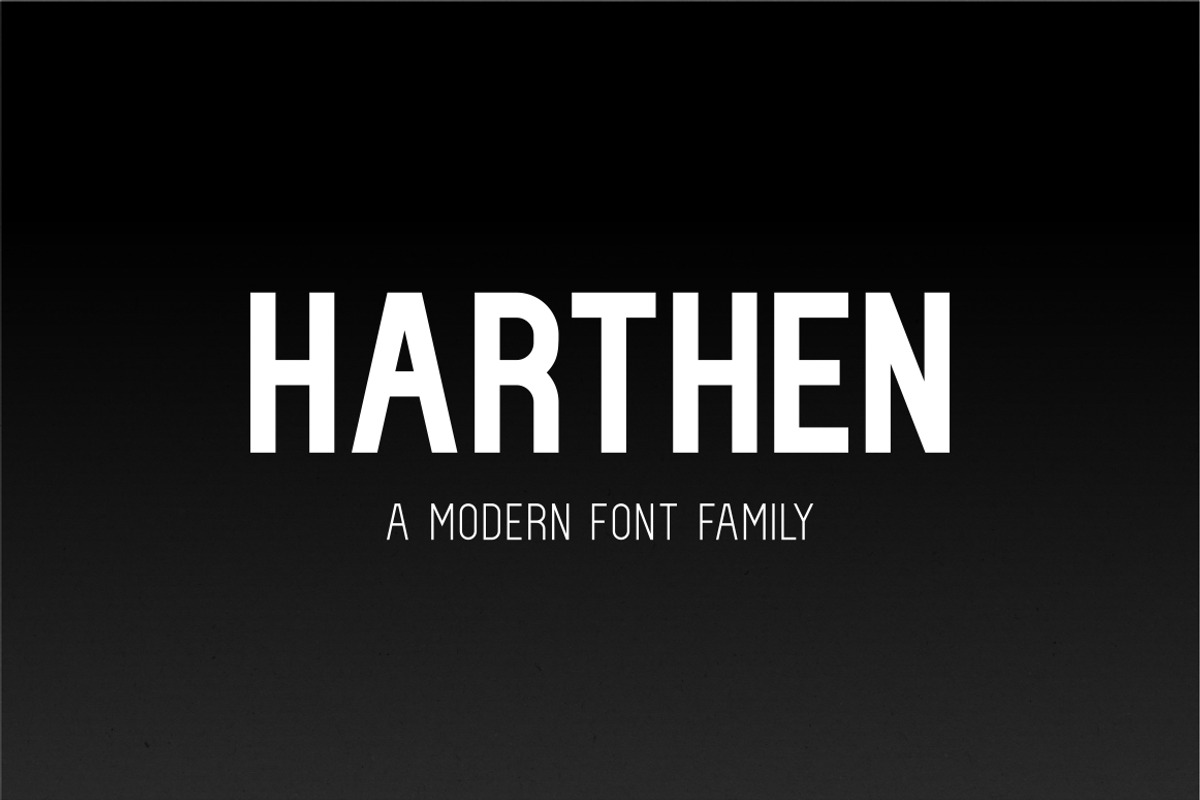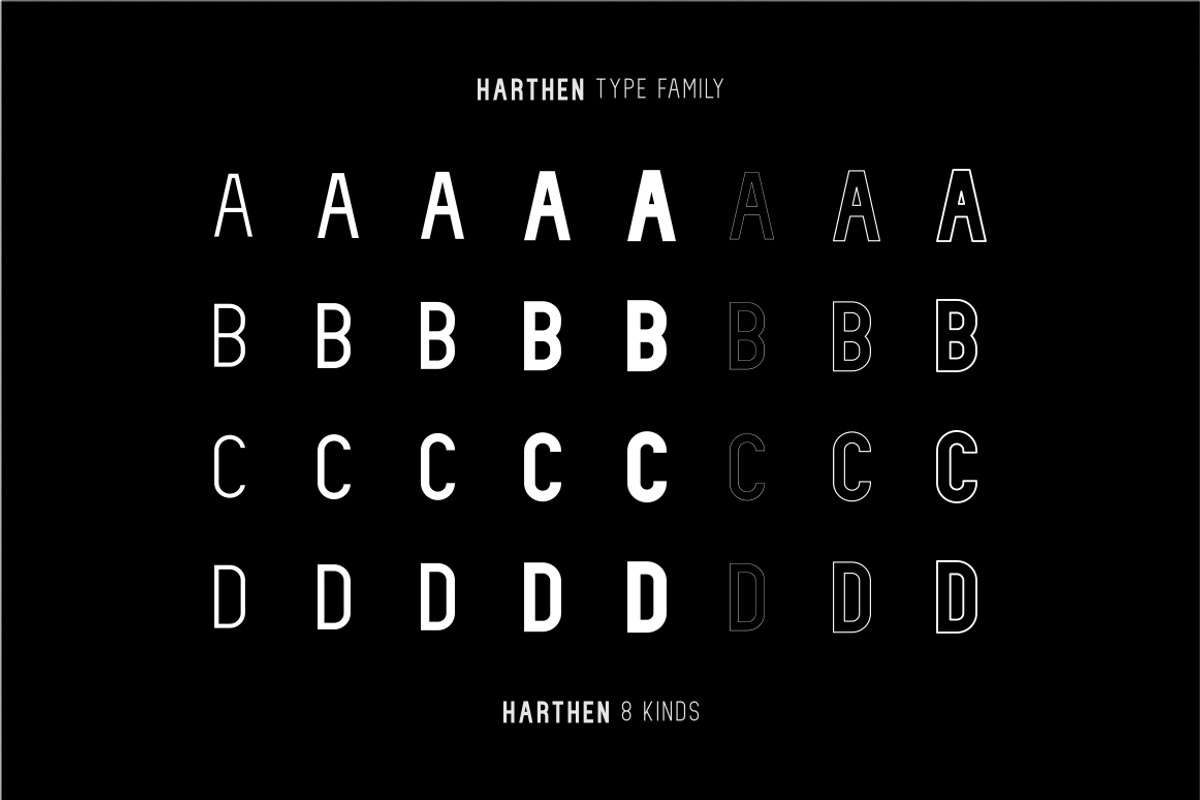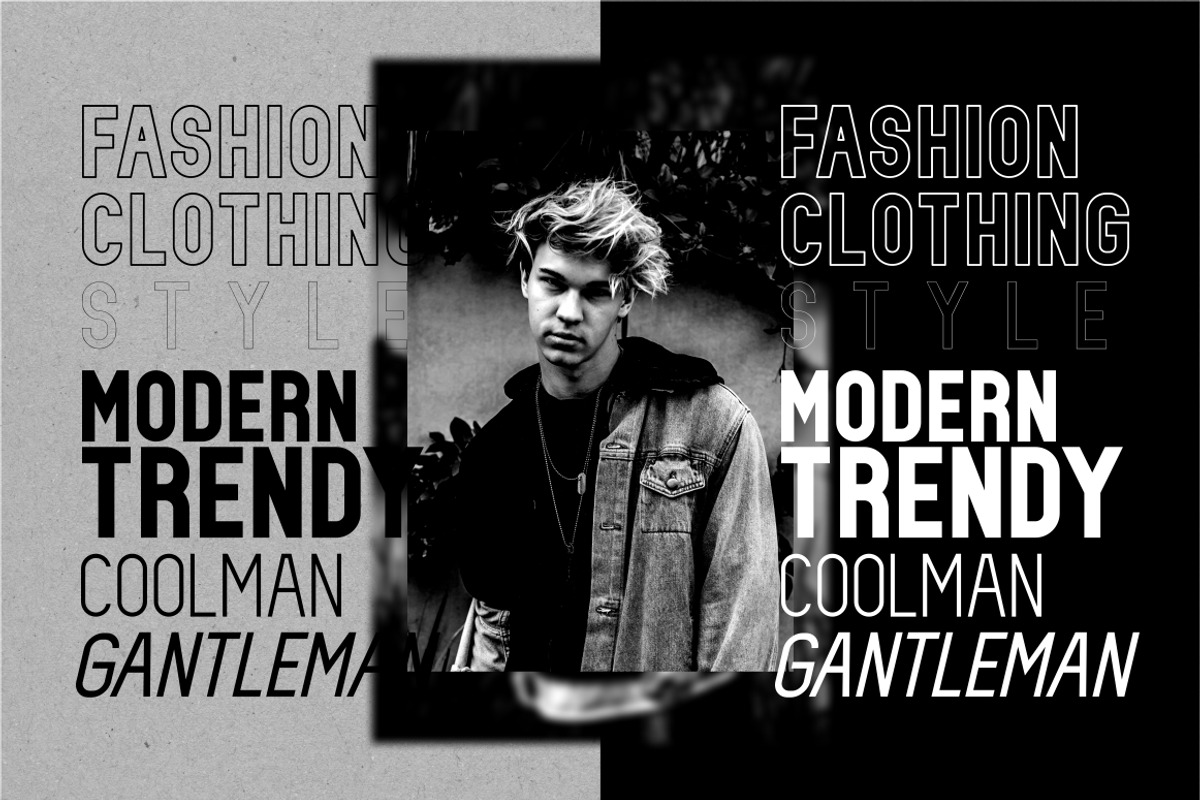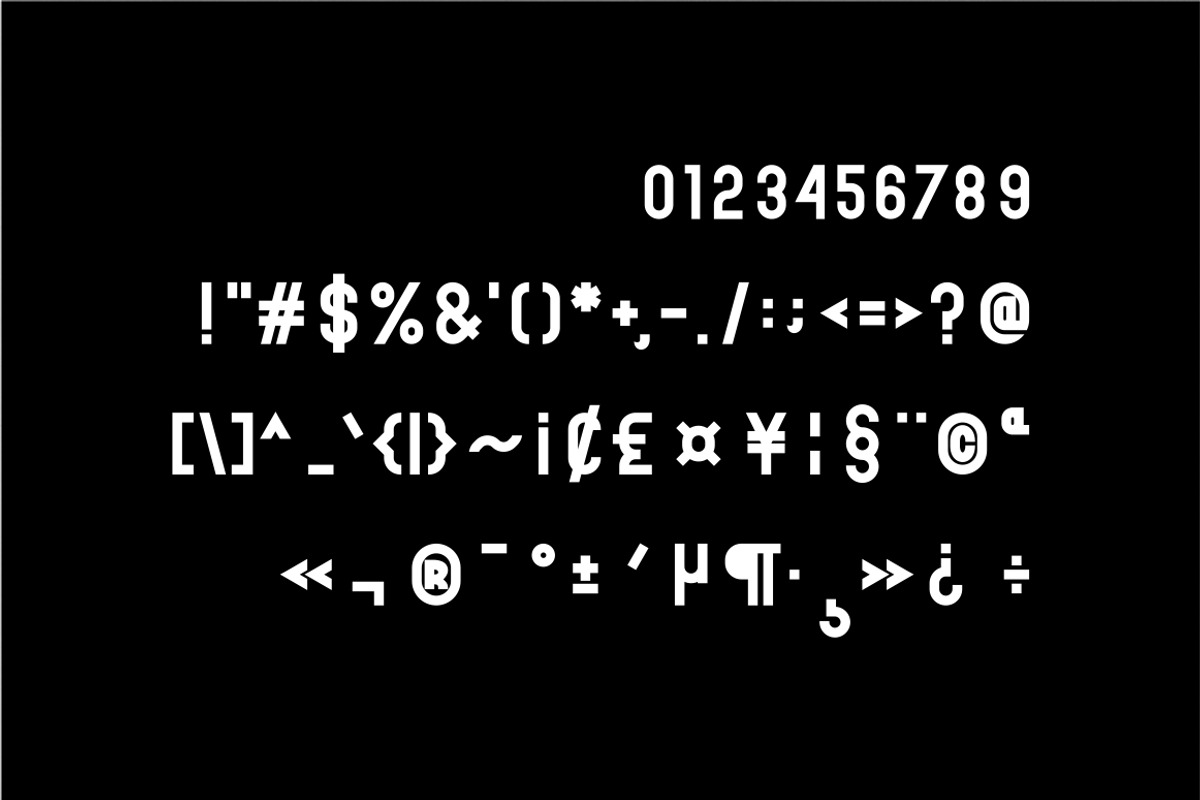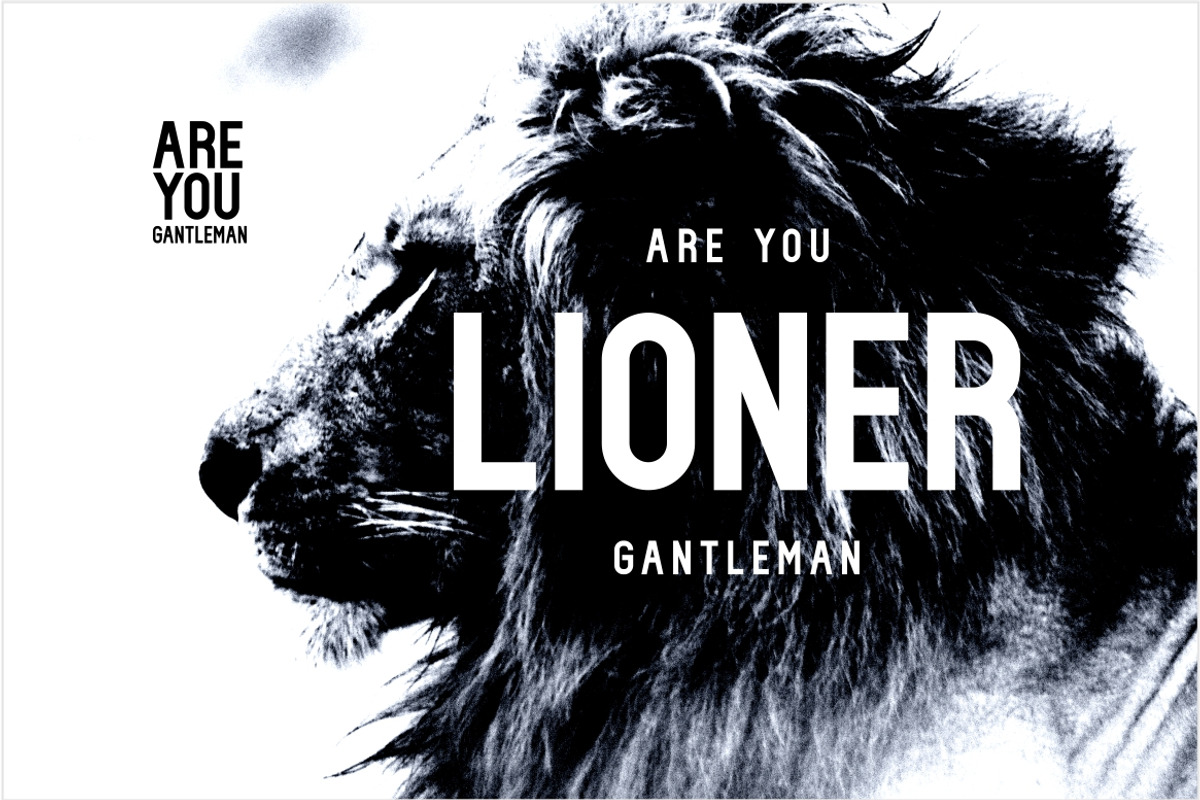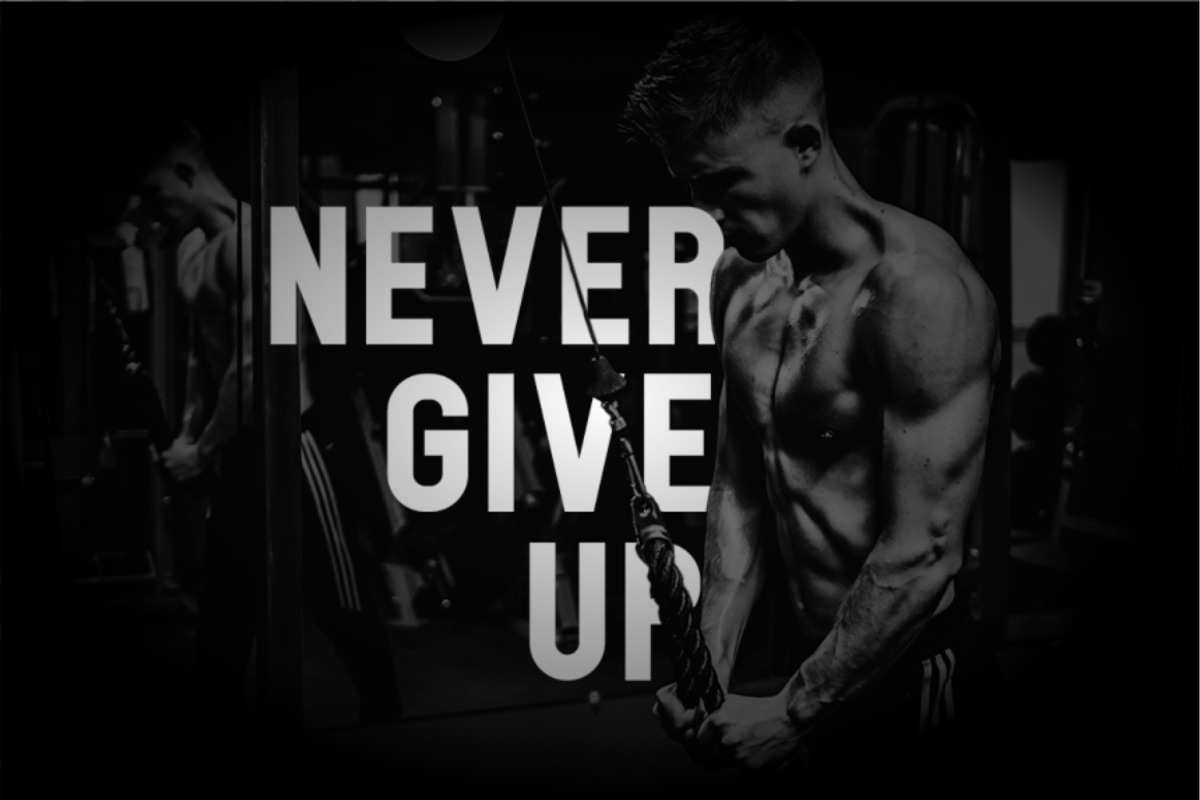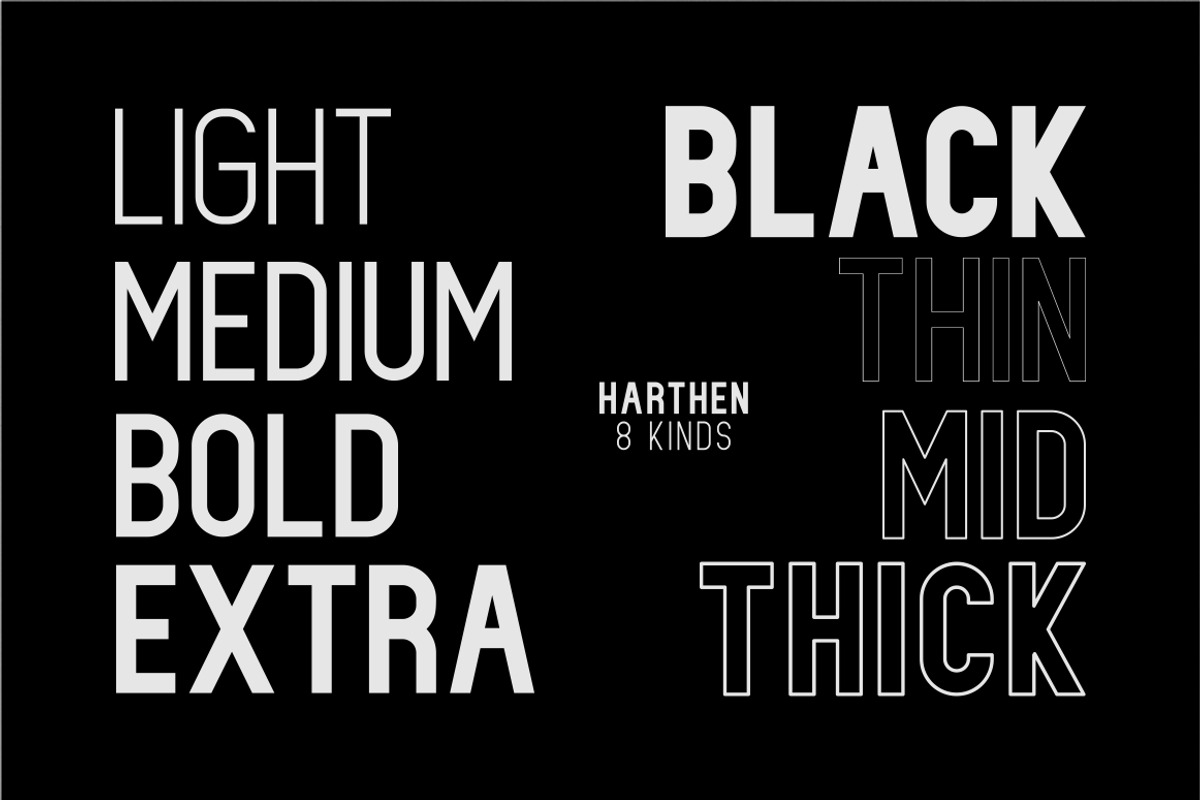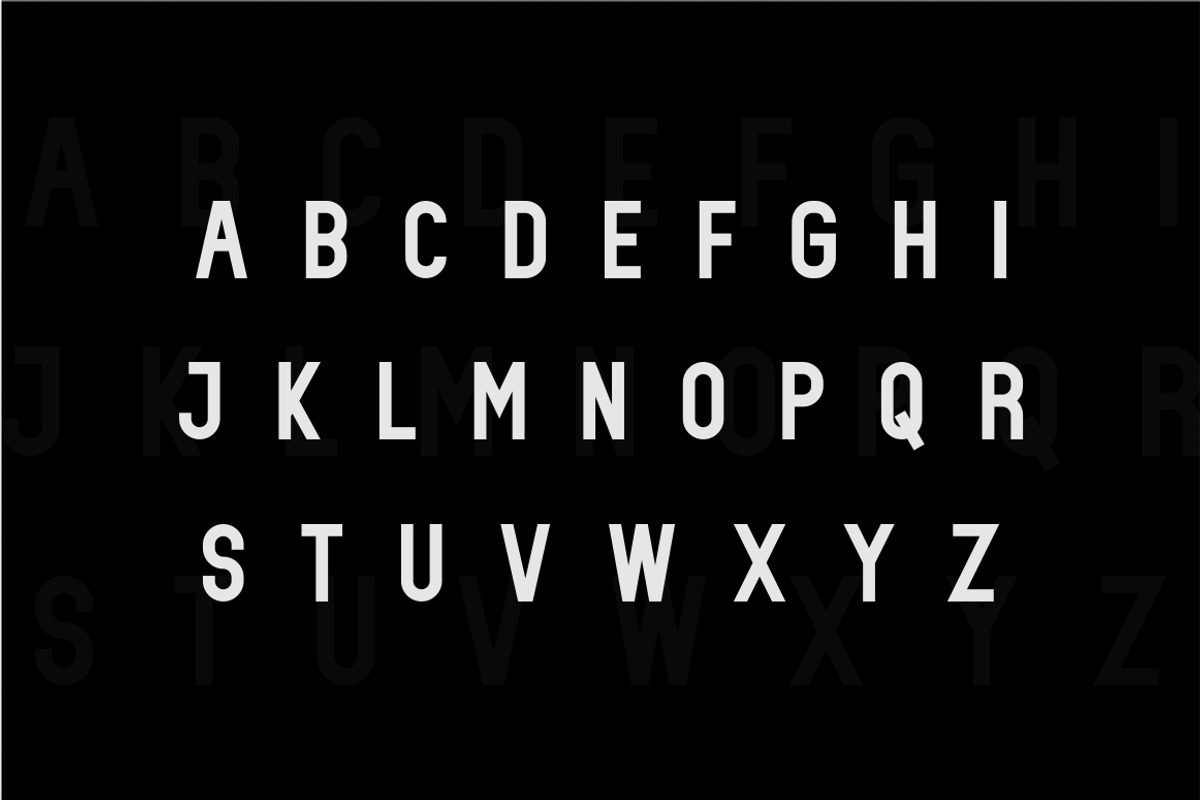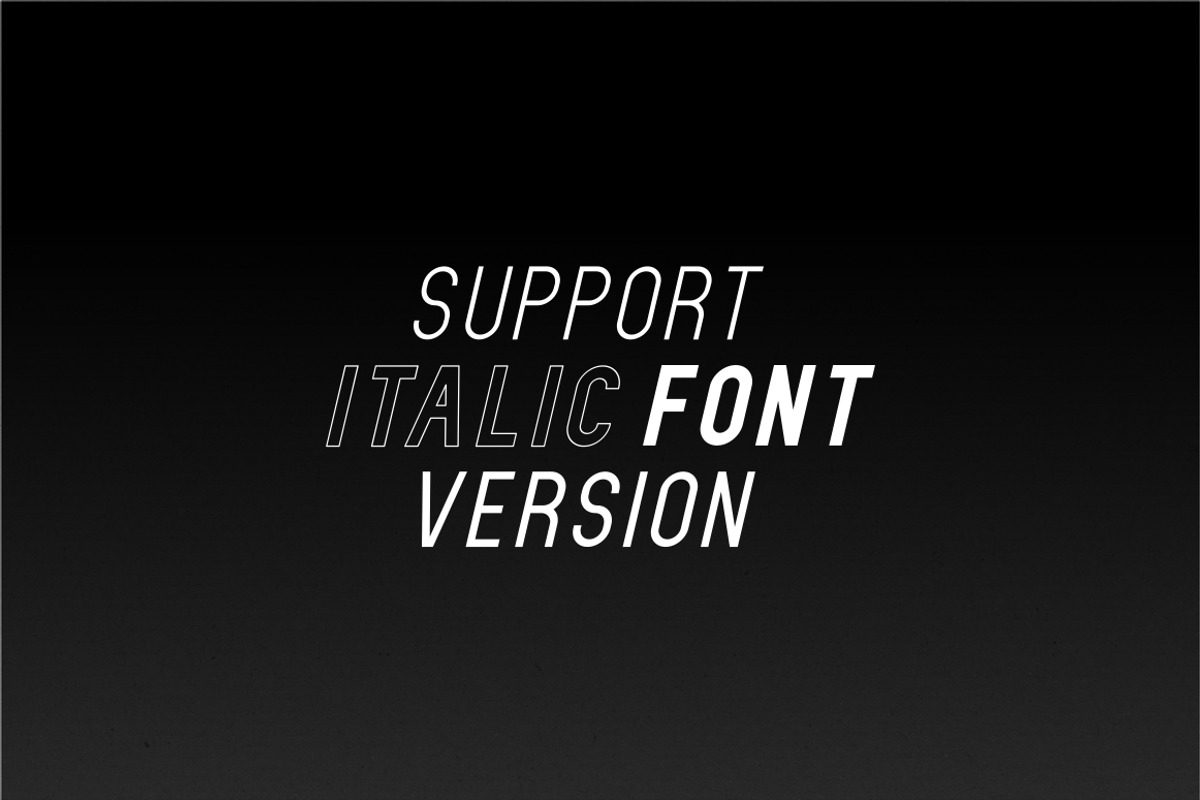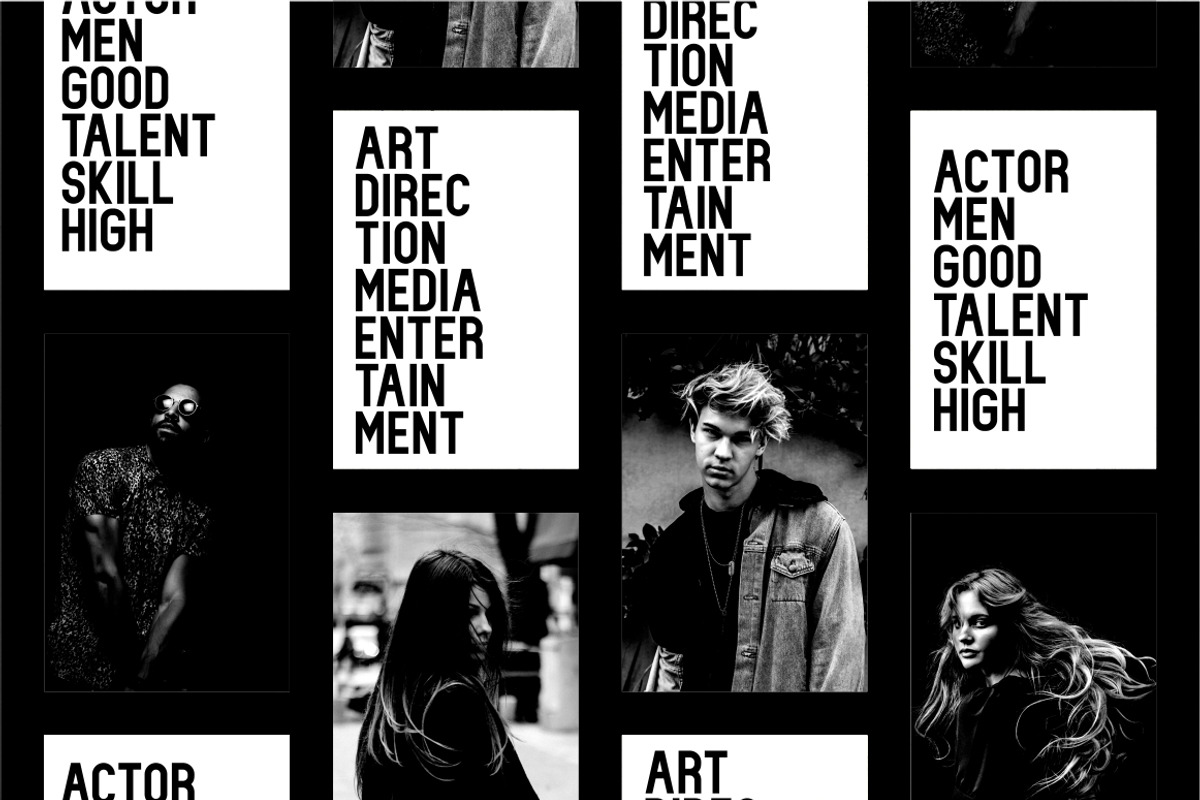
Harthen sans serif powerful family
Harthen sans serif powerful family font
Hi Ladies and Gentlemen! According to market demand, fonts tend to be powerful, modern, simple and trendy styles, so I decided to make this sans serif font that you have in mind. The Harthen font is a modern sans serif font anytime and very well, comes with a modern style hoping to become a favorite by the market. We keep this font looking elegant, classy, modern, stylish, contemporary, and easy to use. Harthen Font is the right choice for fashion, banners, logos, food menus, brand names, branding, brands, quotes, album covers, and other projects. The Harthen font is here to take your designs to the next level.
Font Features: • All caps • 8 kinds of family letters • Italic font version available • Multilingual support • Numerical and punctuation